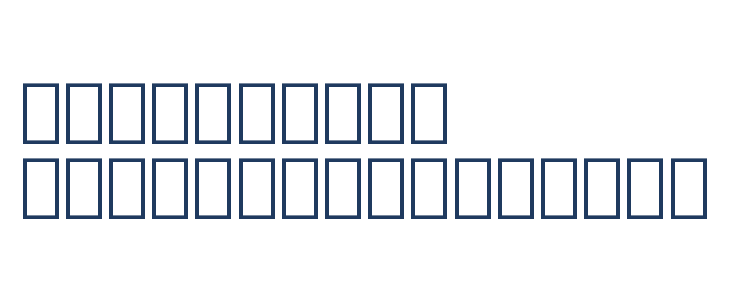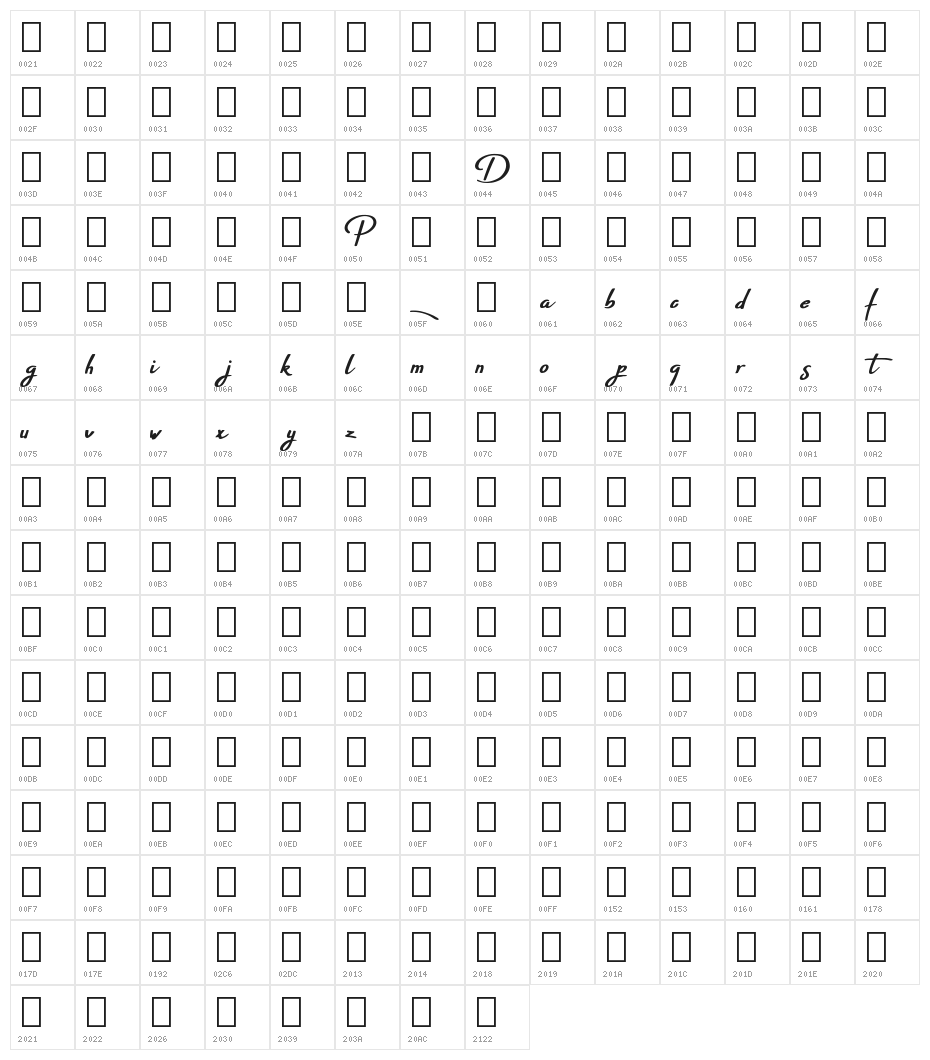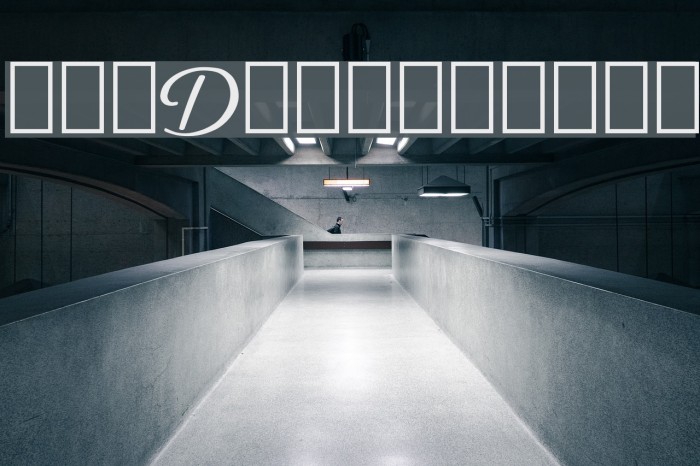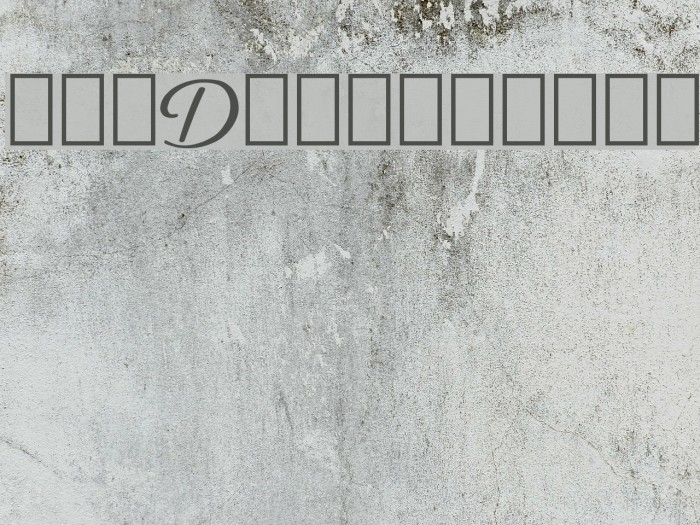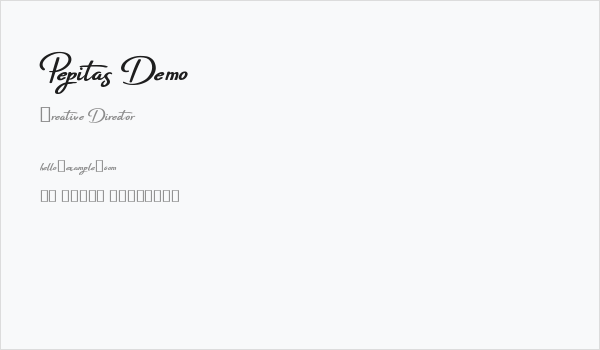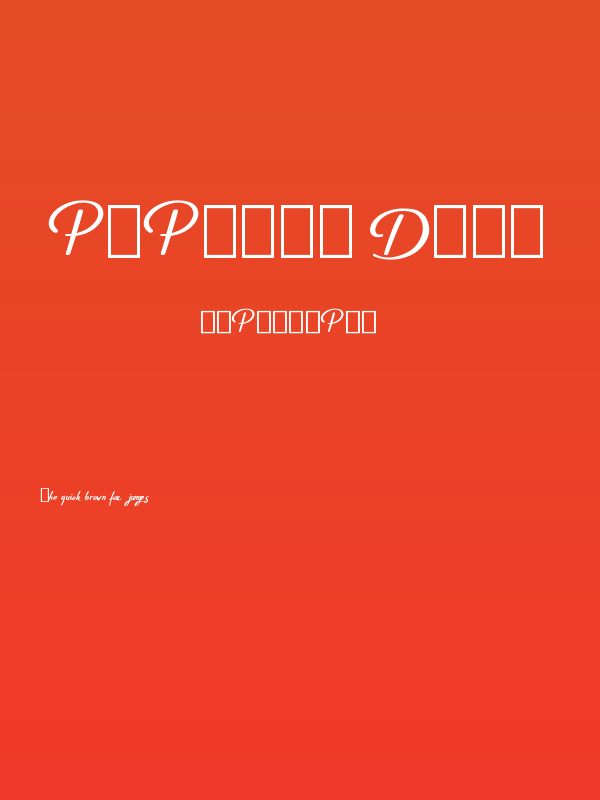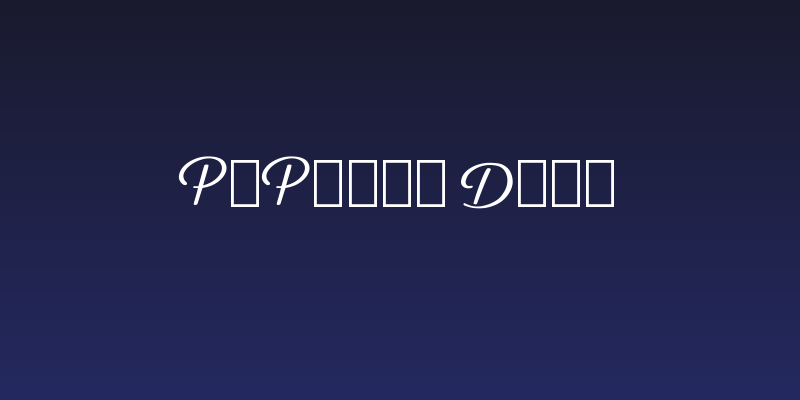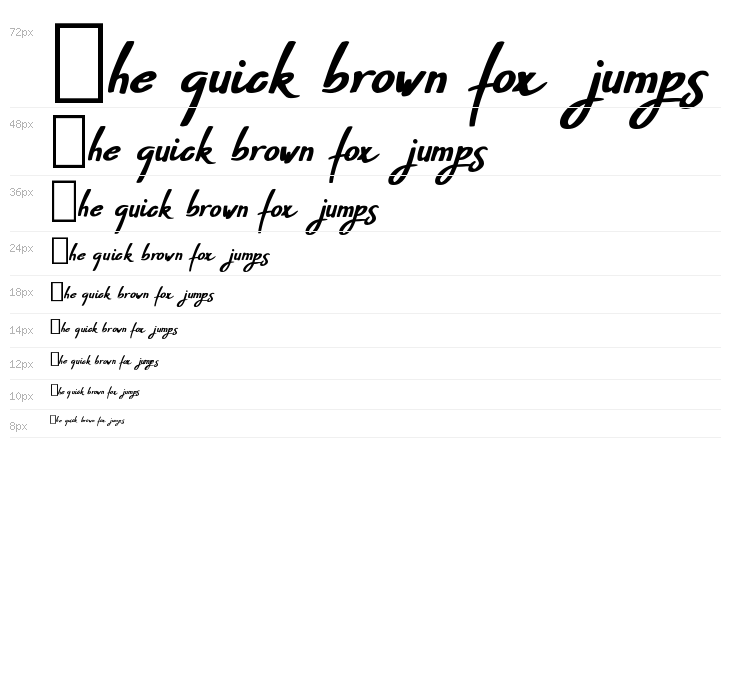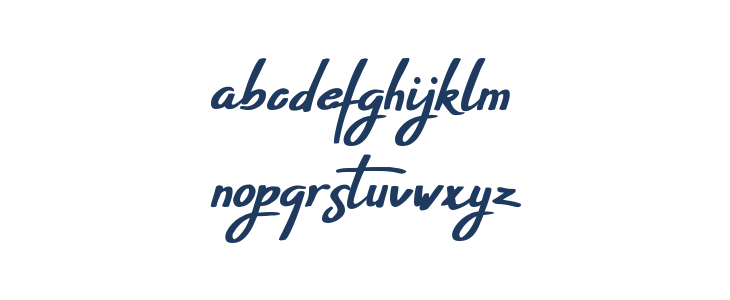
Pepitas Demo Font
Pepitas Demo Description
This font showcases a dynamic and fluid script style, characterized by its smooth, flowing lines and elegant curves. The lowercase letters are particularly expressive, with a handwritten quality that adds a personal touch. The strokes vary in thickness, providing a medium contrast that enhances readability while maintaining an artistic flair. The font's overall appearance is both modern and classic, making it versatile for various design applications. Its unique style is perfect for projects that require a touch of sophistication and creativity.
Use CaseLogos, Invitations, Greeting Cards
Proposed ProjectsIdeal for wedding invitations, greeting cards, branding, and logo design.